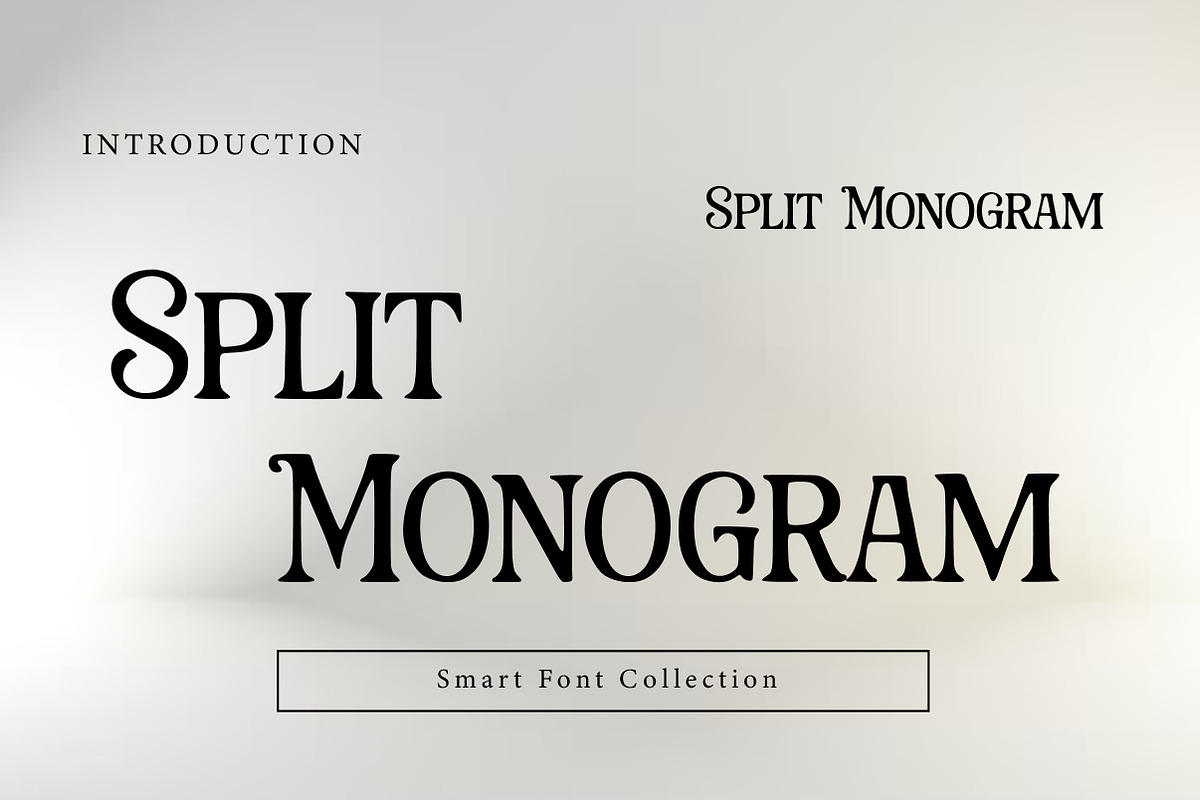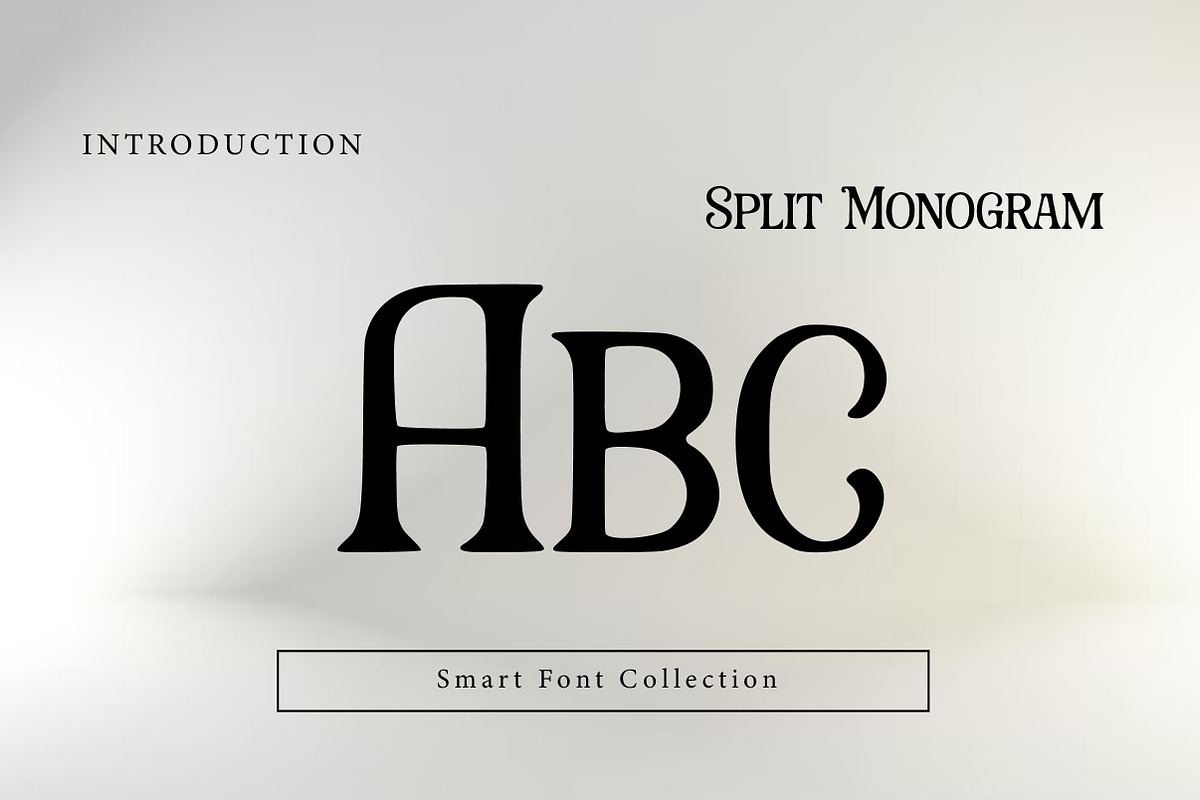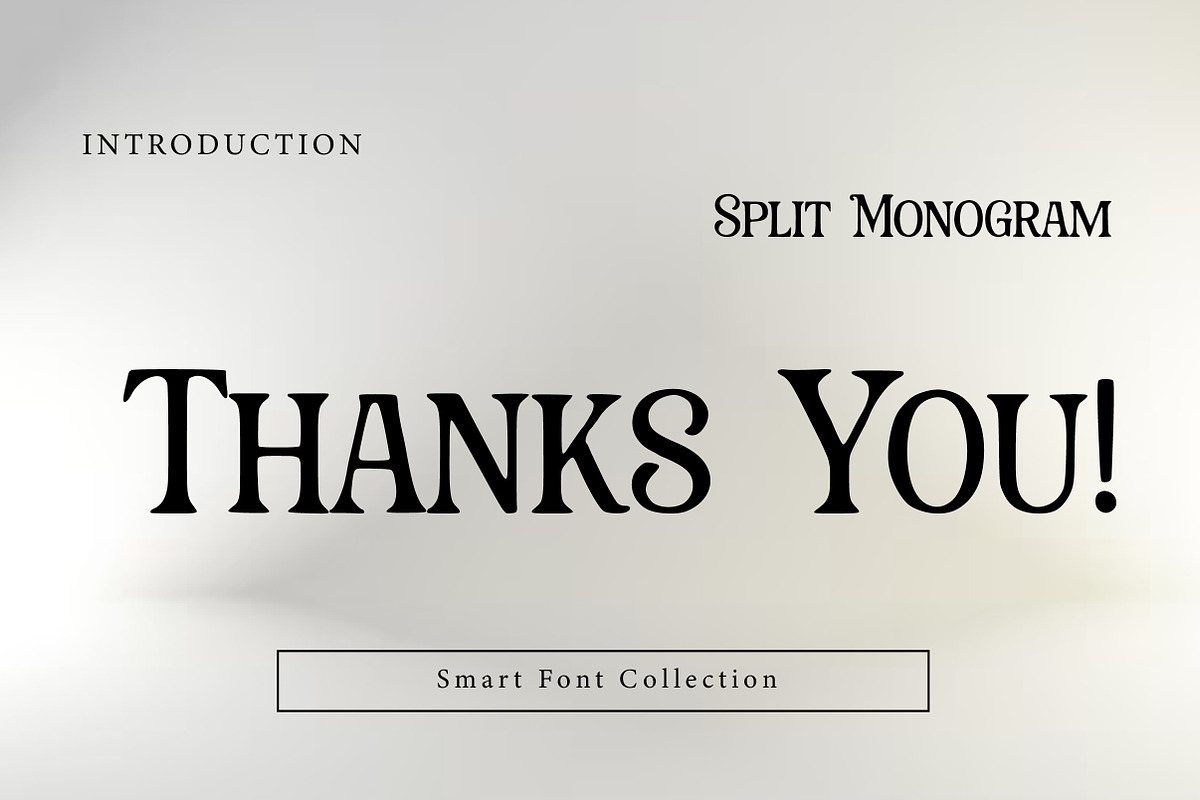
Split Monogram
Split Monogram is an elegant decorative serif monogram font designed with a distinctive split center, perfect for inserting names, initials, or custom text. Its classic structure and ornamental balance make it ideal for wedding designs, invitations, logos, branding, signage, stationery, labels, and personalized gifts. Split Monogram delivers a timeless, sophisticated look with strong customization appeal.